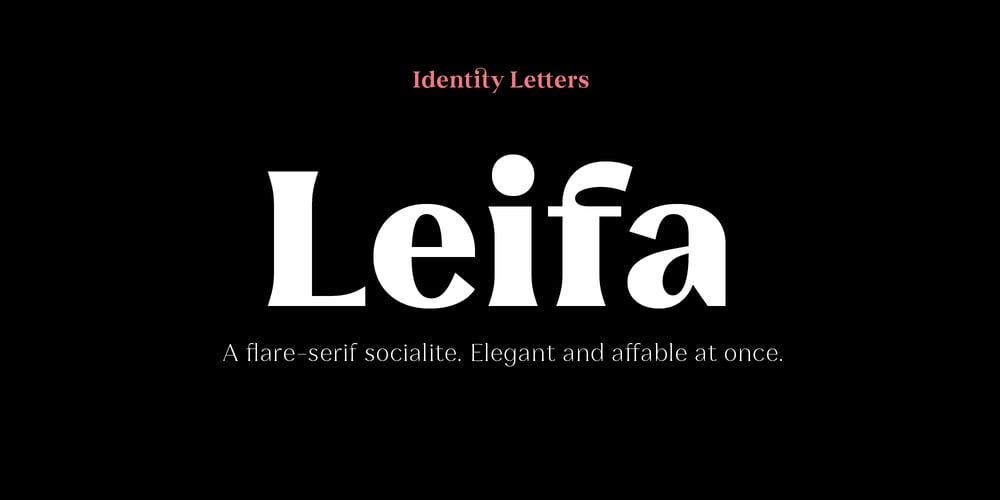
Leifa
Leifa font
Leifa Font Family was designed by Moritz Kleinsorge and published by Identity Letters. Leifa contains 16 styles and family package options. A flare-serif socialite. Elegant and affable at once.Leifa is a flare-serif typeface that strikes a balance between elegant and affable. It’s pleasant to read in text sizes yet takes center stage in headlines and display applications.With its higher-than-usual contrast, Leifa might evoke Didone typefaces at first. However, it differs from strictly Didone designs in the details: flattened serifs and deeply incised, tapered spurs provide an organic effect. These humanist elements are restrained and almost inconspicuous in body copy. It’s in display sizes that they realize their full potential. Set your message in Leifa, set it large, and it will get noticed.A true socialite, Leifa is a most welcome guest on any party. With its dual character and a range of weights that allow for fine-tuning the desired visual voice, it’s a brilliant choice for branding and editorial design. Its good-natured yet sophisticated character makes Leifa the perfect typeface for fashion, sports, lifestyle, social media, food and cooking, health, beauty, architecture, interior design, art, literature, theater, and travel. (And any other topic that you’d love to talk about at a dinner in good company.)The entire font family consists of eight weights. Each comes with an italic counterpart, totaling 16 styles. Leifa’s italics are oblique, optically corrected versions of the upright styles. Each style comprises a character set of 883 glyphs that includes small caps, a set of ligatures, tabular and old-style figures, case-sensitive forms, fractions, symbols, and many other features. Four stylistic sets allow you to adjust the appearance of the Leifa fonts: a single-story a (SS01), a simple f (SS02), a triple-story g (SS03), and thin punctuation marks (SS04) are at your disposal.If you’re looking for a typeface with some debonair spirit, look no further than Leifa.